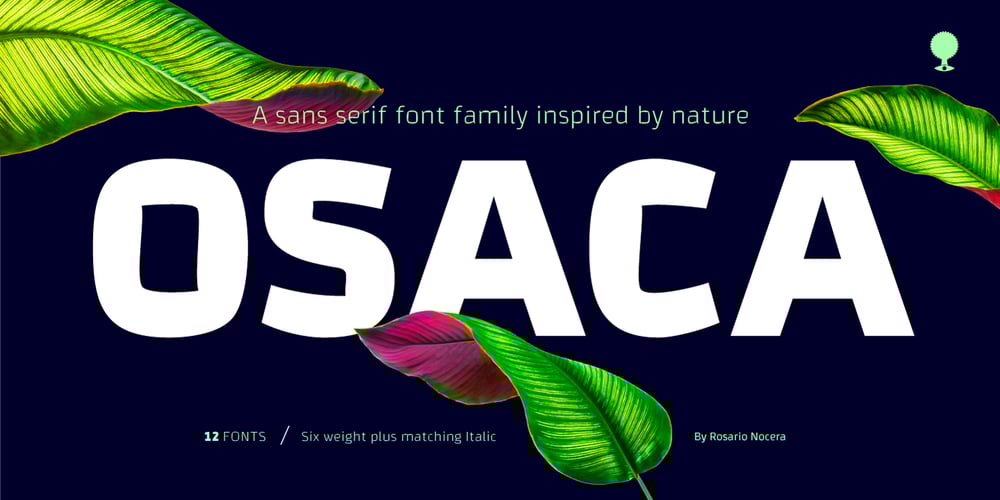
Osaca Font Family was designed by Rosario Nocera and published by Rosario Nocera. Osaca contains 12 styles and family package options. Osaca is a sans serif font family inspired by nature and it is composed of 6 weights, from extra light to heavy, including the matching italics. Osaca is a typeface that doesn’t go unnoticed due to its particular design: its curves and lines mirror the typical motif of leaves.Osaca is ideal for large and medium headers and titles, but also perfectly suitable for short or large paragraphs as it creates an effect that is quite different from the classic sans-serif and definitely unique.